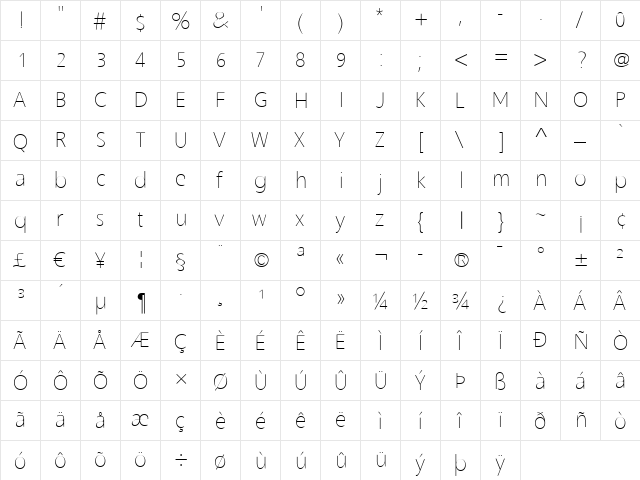
Slippy UltraLight
Design Context for Slippy Typeface
Slippy takes a measured approach to typography — its balanced proportions and neutral character make it a reliable workhorse for both digital and print work. The delicate stroke weight brings airiness and refinement to layouts.